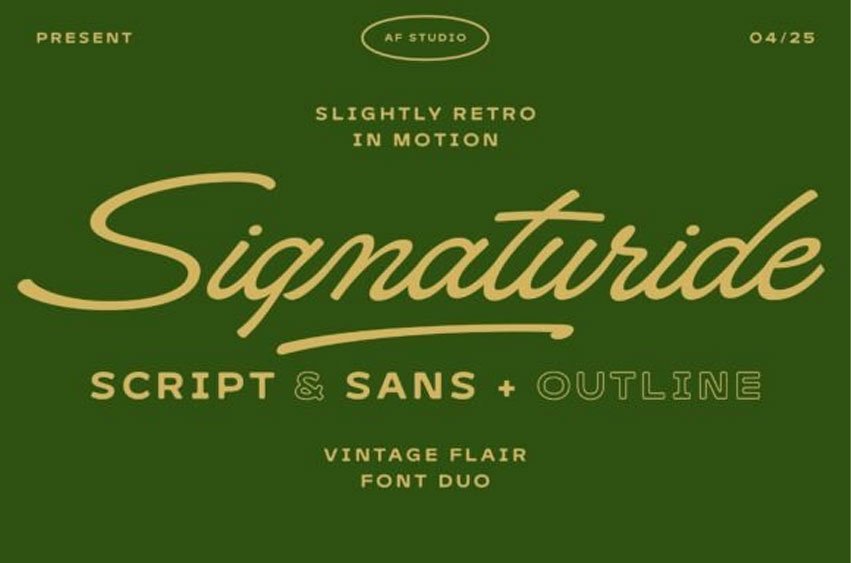
Signaturide Font is a versatile vintage-inspired font duo that seamlessly blends retro charm with modern functionality.
Featuring a dynamic pairing of script and sans-serif styles, Signaturide captures the expressive motion of mid-century design while offering contemporary usability for branding, editorial, and packaging projects.